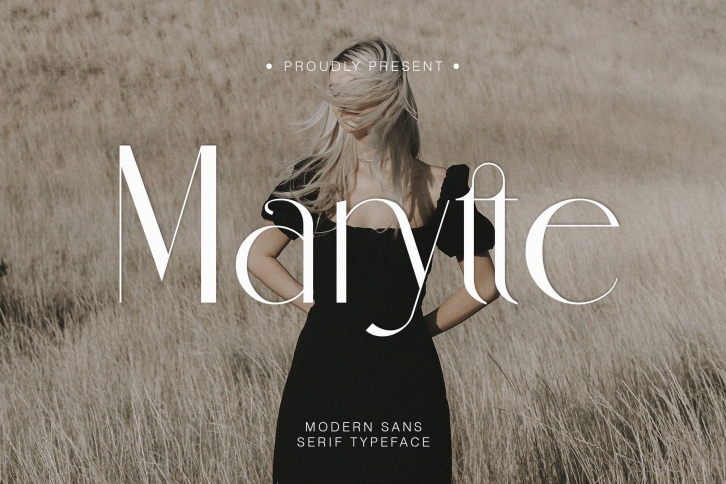
Marytte Modern sans serif Typeface is a gorgeous font that was realeased on August 21, 2022. The font can be used in many style contexts and design environments. Perfect for invitations, magazines, websites, logos, and more! It was designed by Alfinart and the file size is 21.15 MB. Thanks for checking out this font!